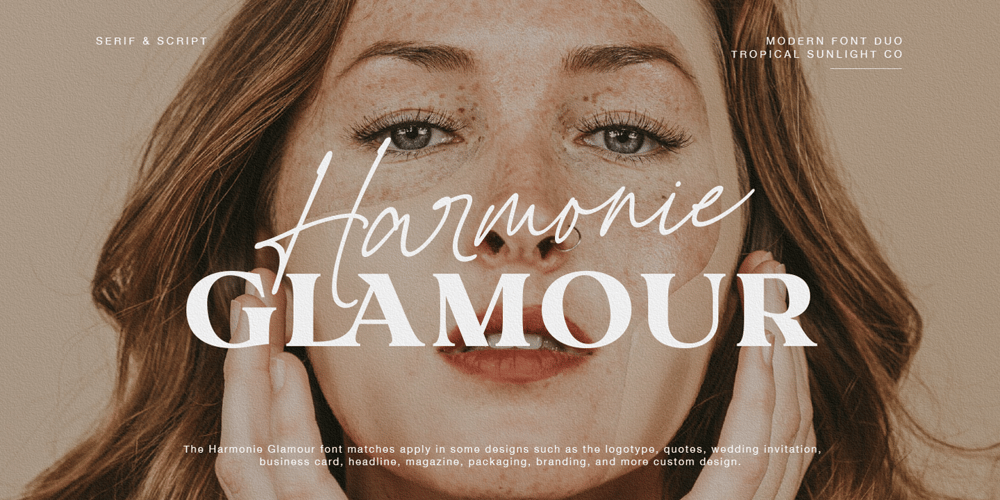
Harmonie Glamour Font Family was designed by Faisal Tanjung, Edi Gunawan and published by Tropical Sunlight Co.. Harmonie Glamour contains 2 styles and family package options. Harmonie Glamour – Modern Font DuoThe font is called “Harmonie Glamour”, it is font duo with fashionable themes. The font comes with two pairing typefaces (script and serif). Script font contains set alternates and some ligatures. Harmonie Glamour matches apply in some designs such as the logotype, quotes, wedding invitation, business card, packaging, branding, and more custom design.Harmonie Glamour includes :- Uppercase, lowercase, numeral, symbol and punctuation, alternate, ligature in script font- All-caps, numeral, symbol, punctuation and ligature in serif font- Multilingual- PUA EncodedIf you have any questions, please contact : tropicalsunlight.co@gmail.com